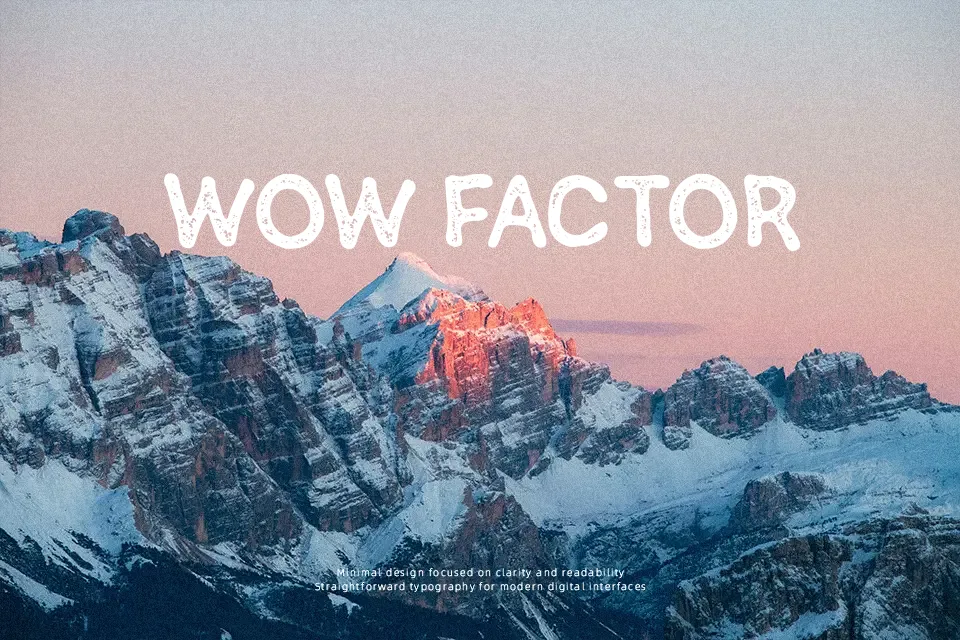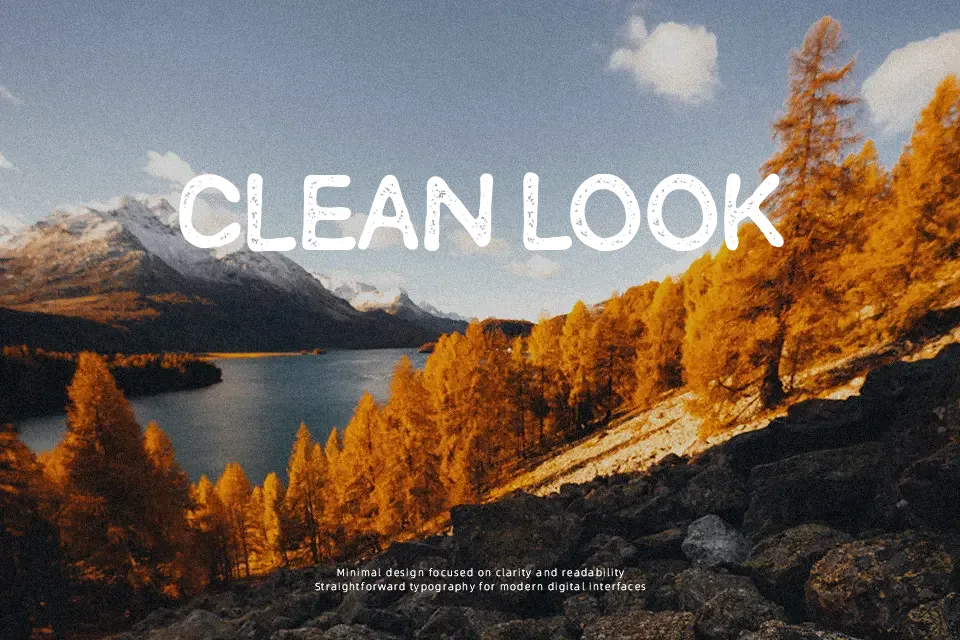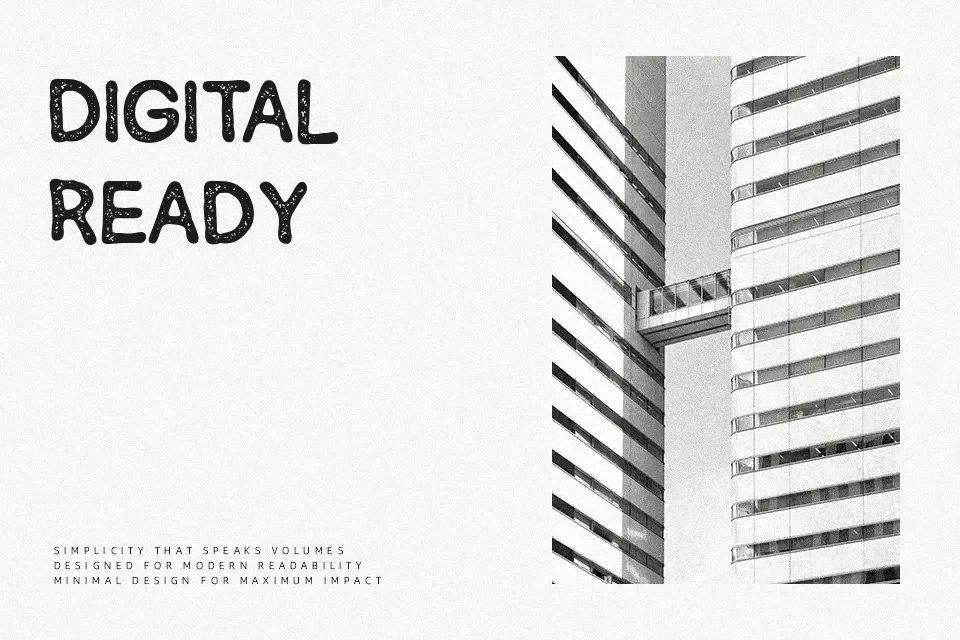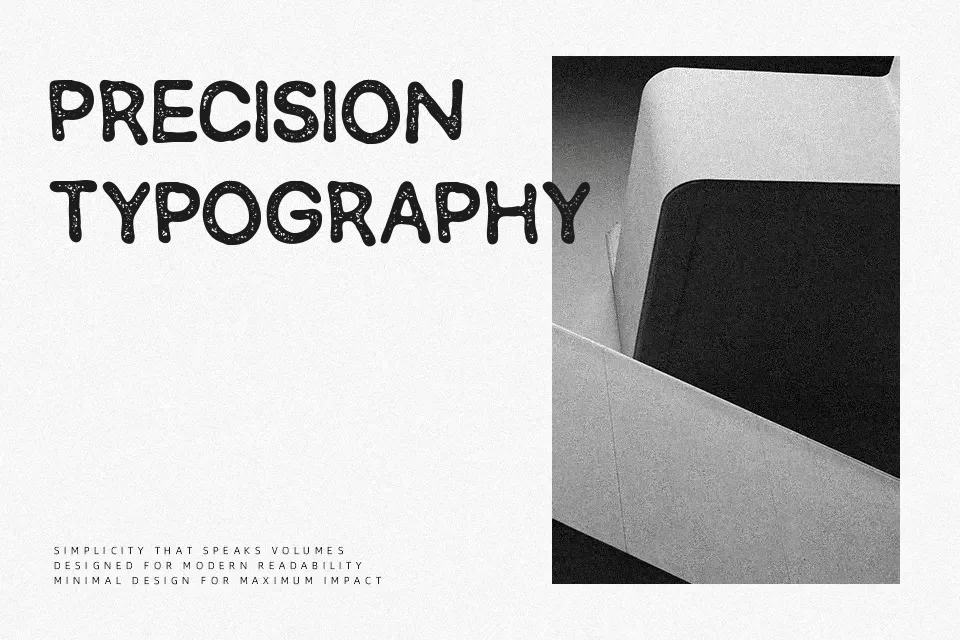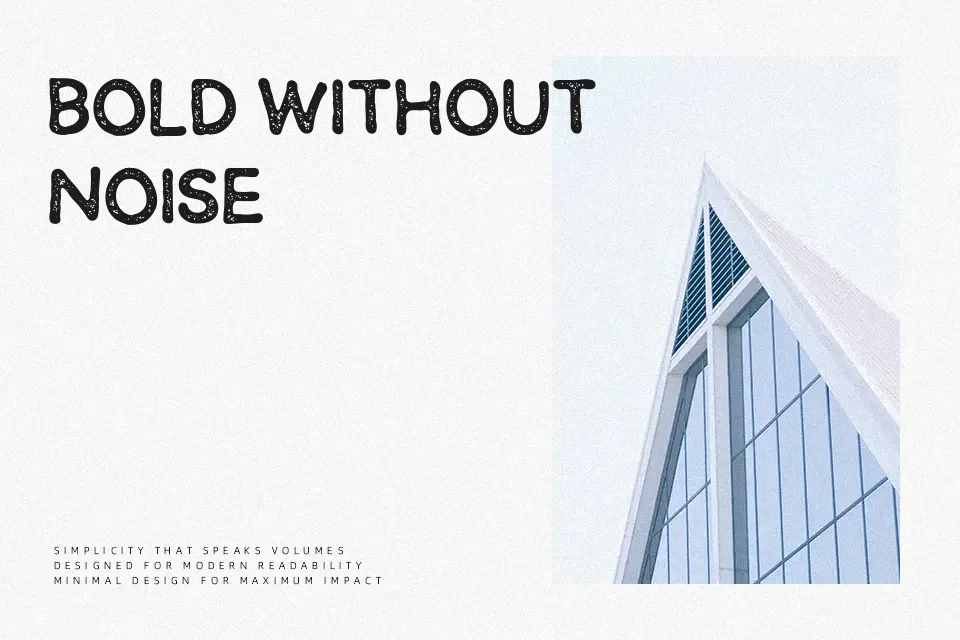
Semeru Stamp Font
Semeru Stamp Font pairs sturdy sans-serif proportions with an authentic eroded stamp texture that creates an aged, handcrafted aesthetic across uppercase and lowercase glyphs. The uniform stroke thickness and balanced character spacing preserve distinct letter shapes at medium and large display scales, ensuring titles remain readable against textured backgrounds. Its distressed surface makes the typeface especially compelling for artisanal product labels, retro event posters, and bold apparel graphics. However, the heavy texture and dense fills reduce legibility when scaled down to small caption sizes. For maximum effectiveness, designers should keep letter spacing comfortable and avoid tight paragraphs of continuous reading.
Best For: rustic product packaging, craft brewery labels, outdoor apparel graphics, vintage event posters
Not Ideal For: long continuous body text, small mobile interface captions, dense editorial paragraphs, financial data tables